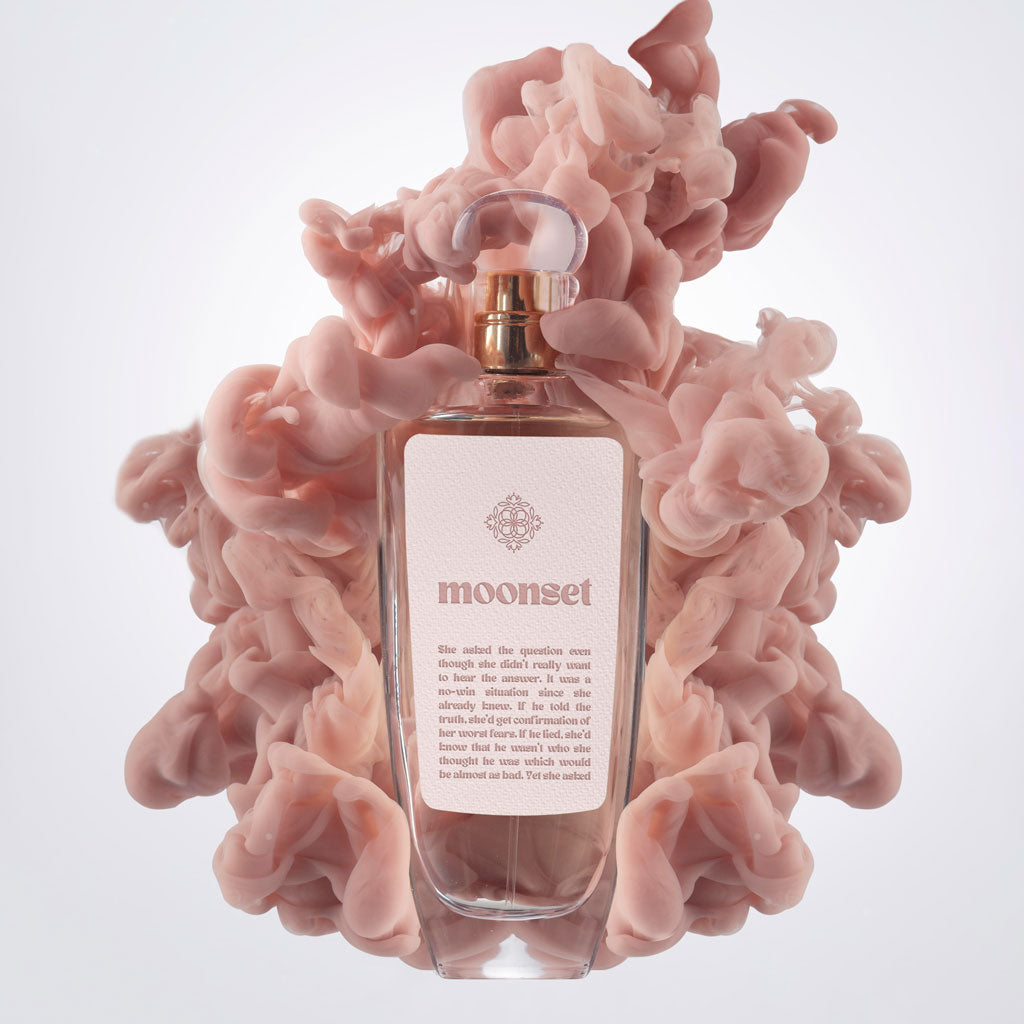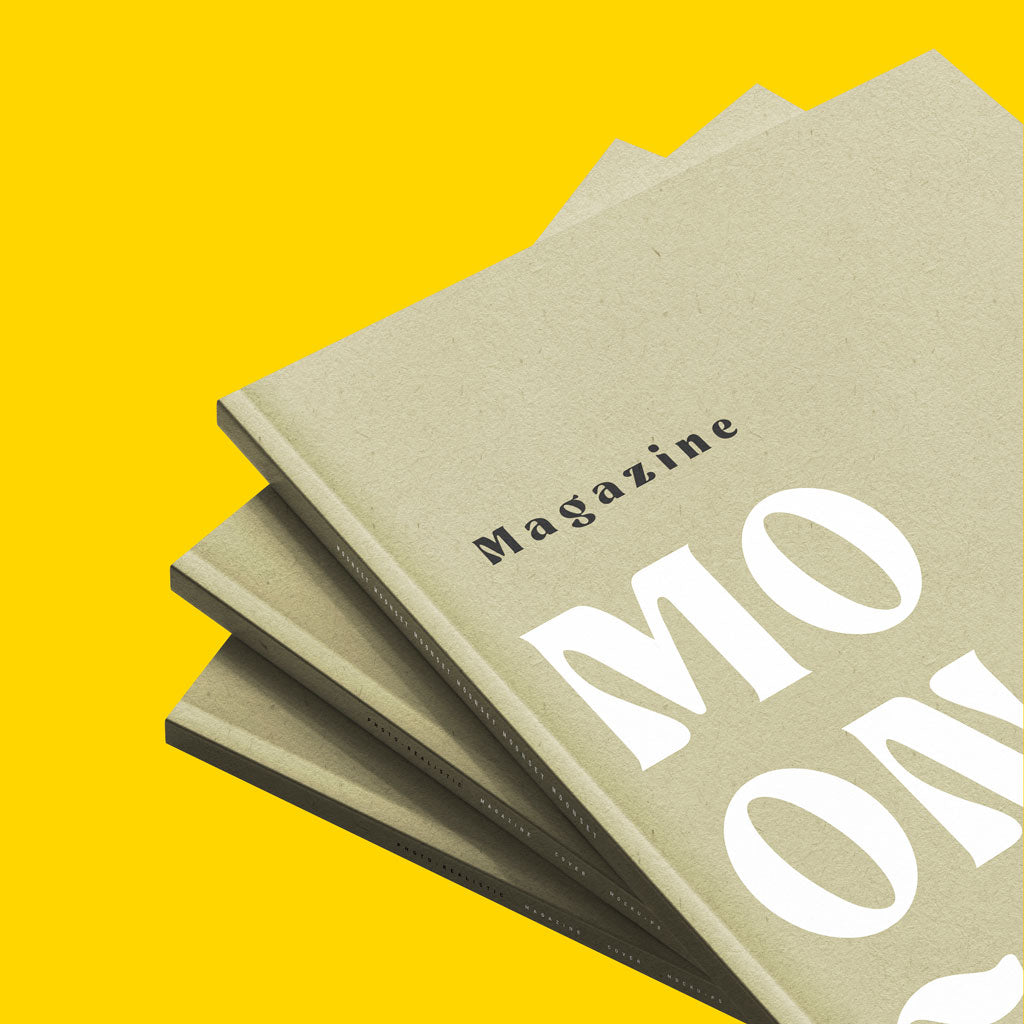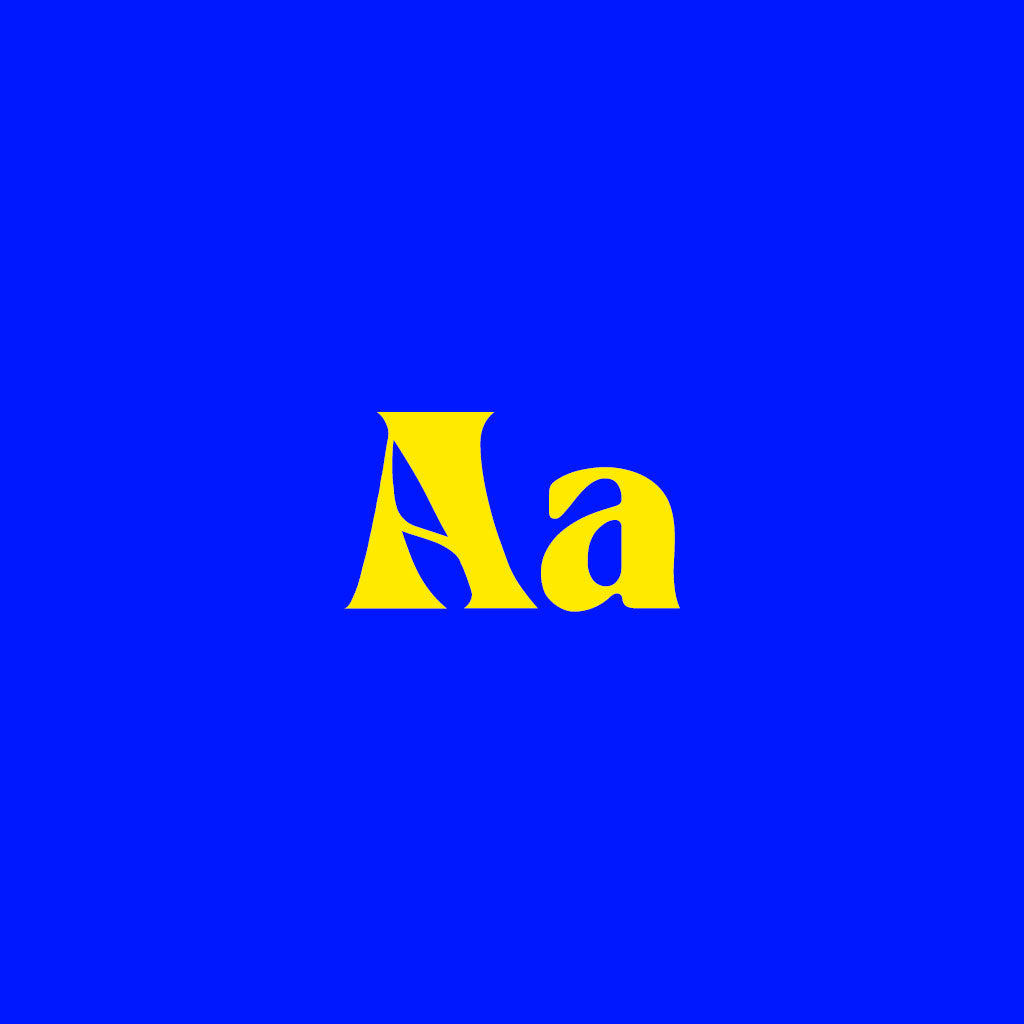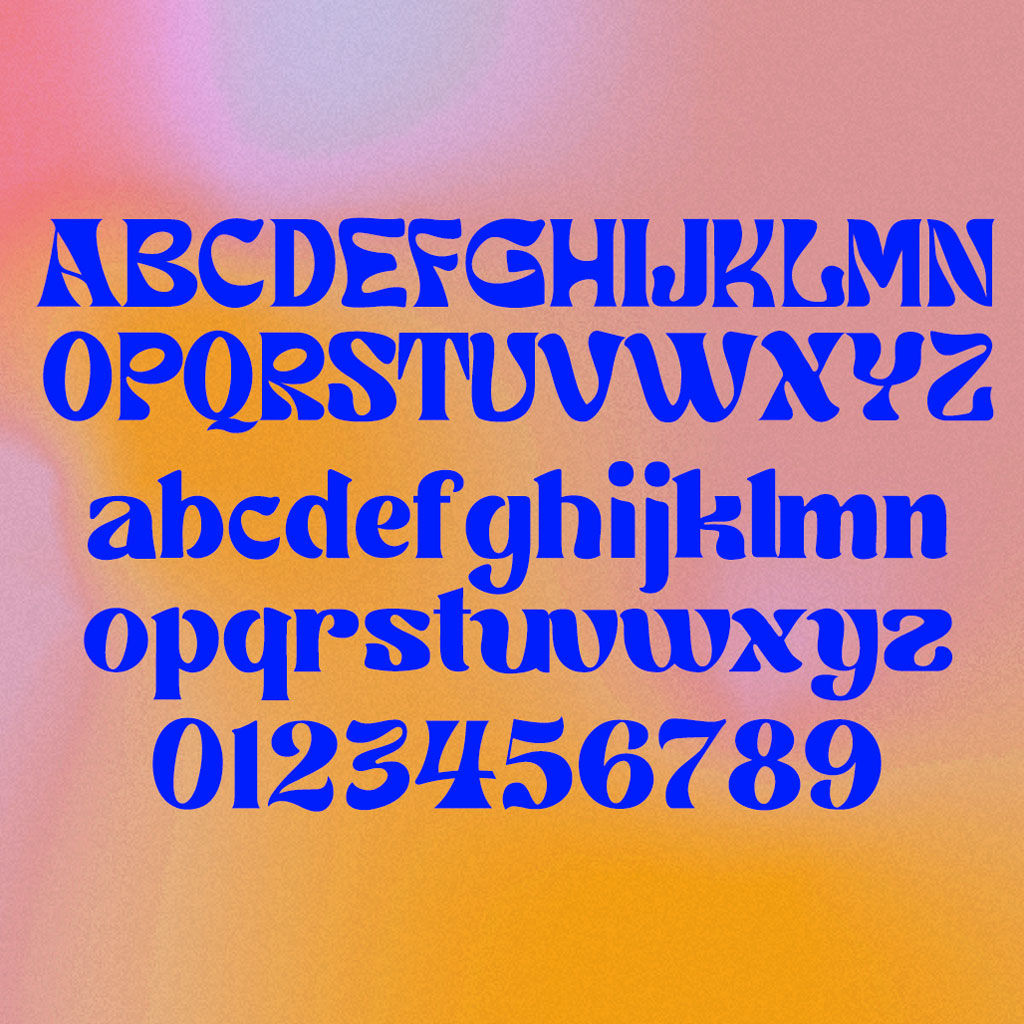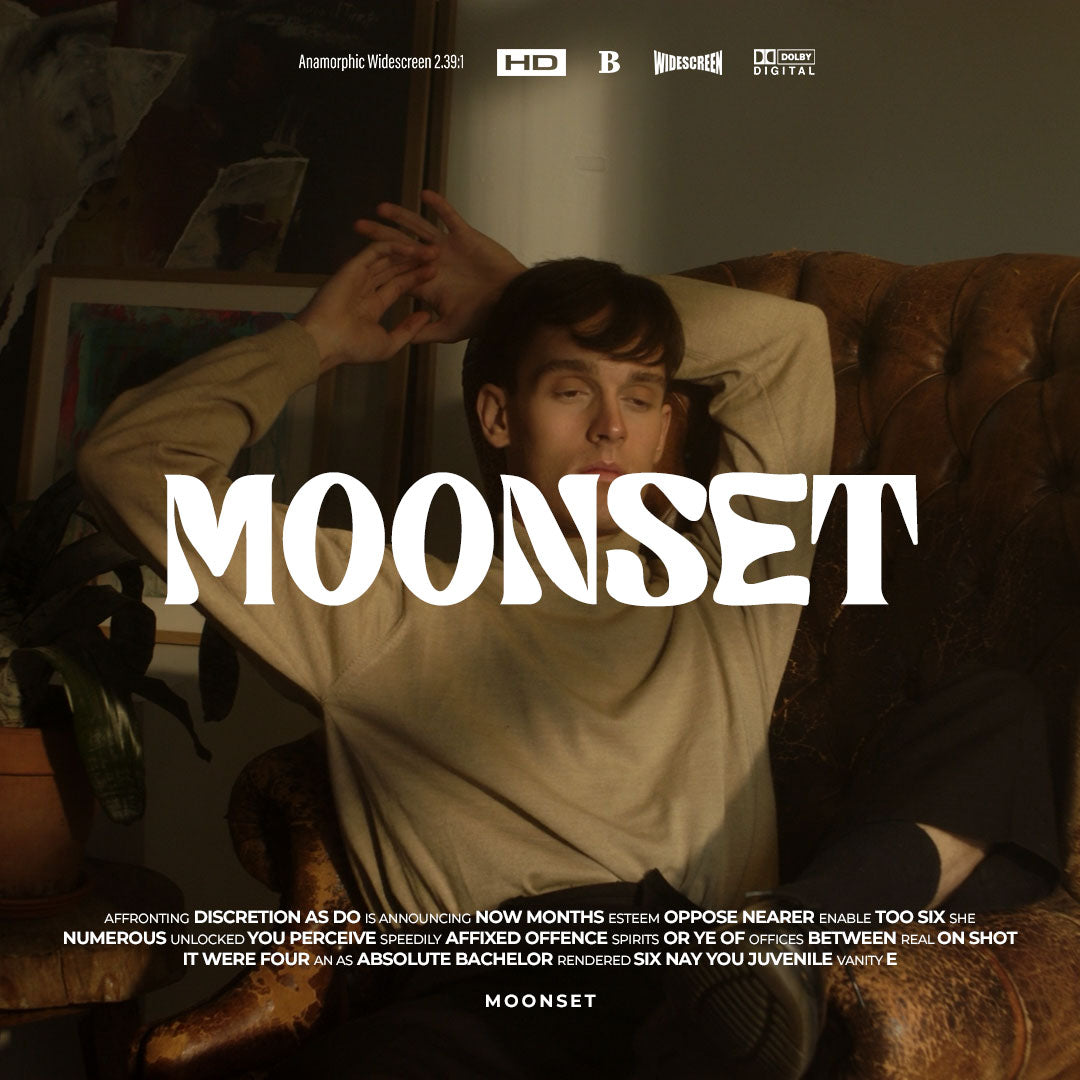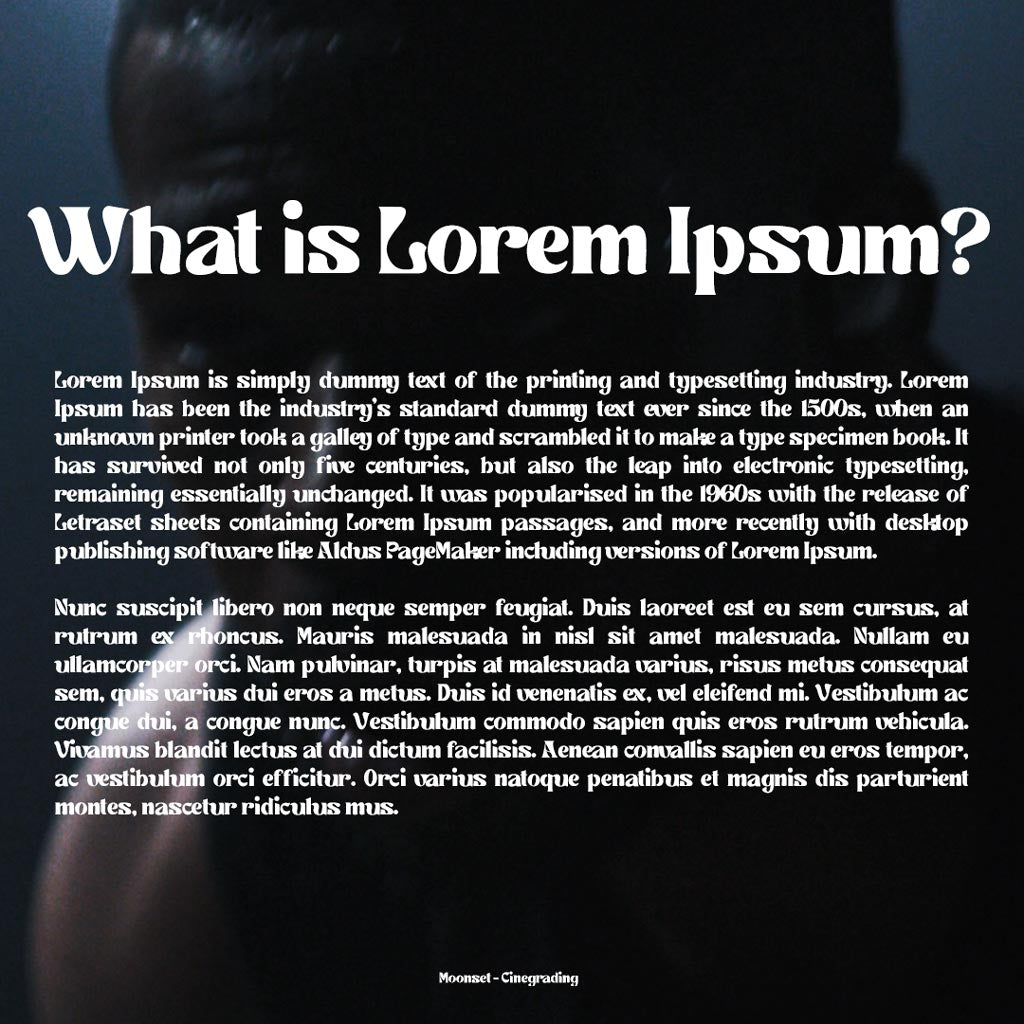
If you’re looking for a way to break the mold, you’ve come to the right place. The Moonset Font is a psychedelic inspired, bold, display typeface with smooth, dreamy lines and a retro feel. Don’t settle for the same tired typefaces — give your content a look that will be remembered.